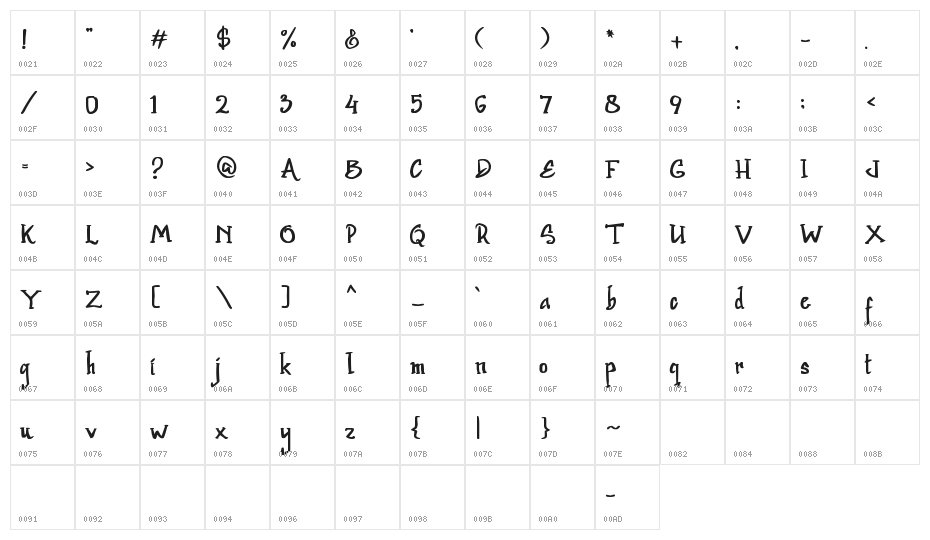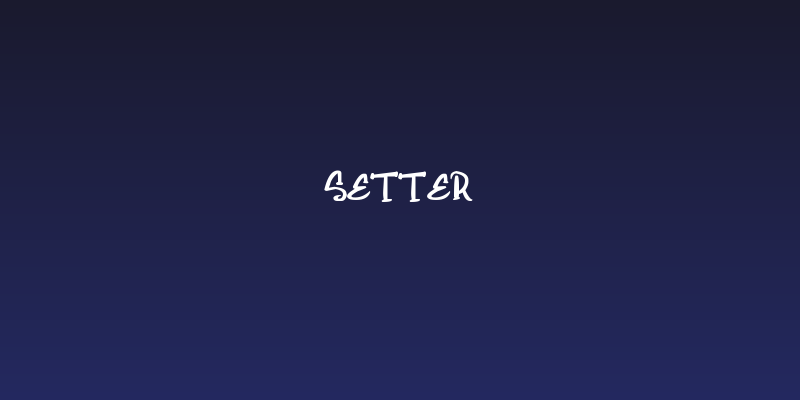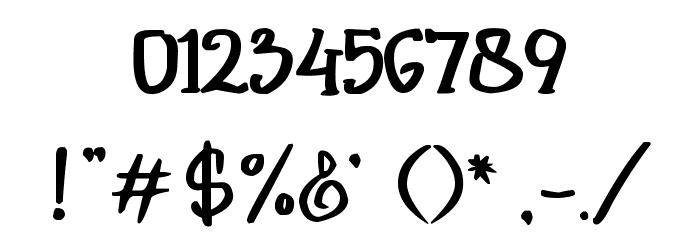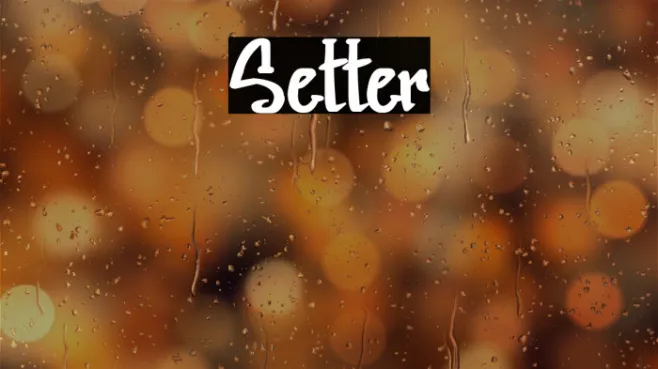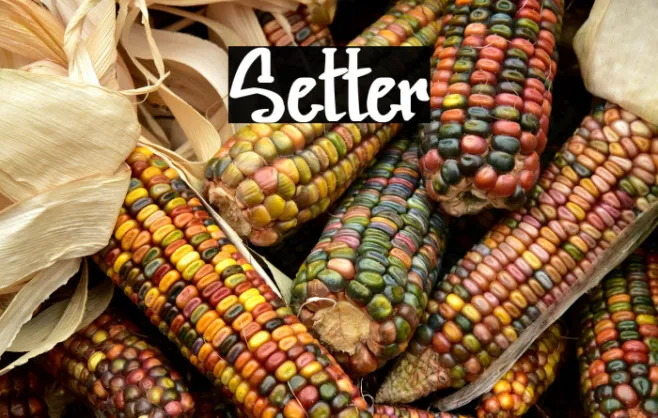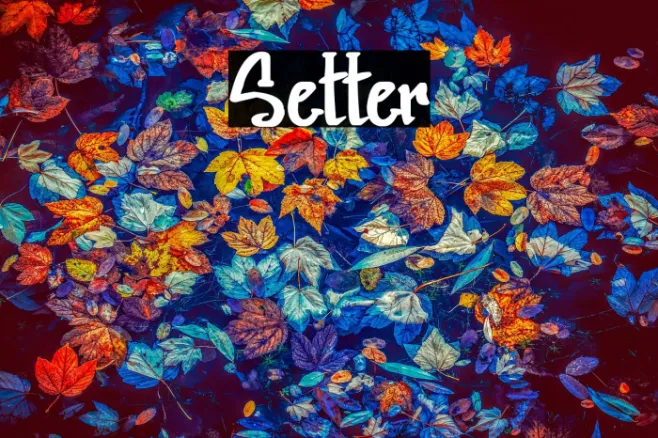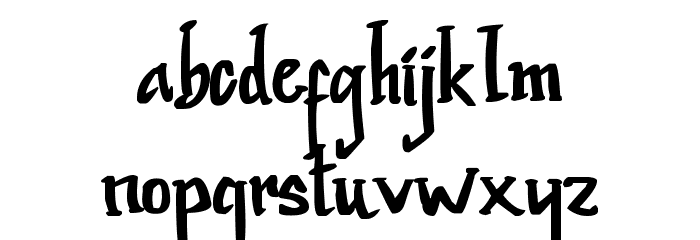
Setter Font
Setter Description
This font features a bold and dynamic style with a unique, hand-drawn appearance. The uppercase letters are characterized by their angular and slightly exaggerated forms, giving them a distinct, artistic flair. The lowercase letters maintain a consistent style, with some characters having elongated ascenders and descenders, adding to the font's overall whimsical and playful nature. The numbers are bold and clear, ensuring readability while maintaining the font's artistic style. Special characters are creatively designed, matching the font's overall aesthetic. This font's bold strokes and artistic design make it suitable for creative and expressive projects.
| Proposed Projects | Ideal for posters, artistic projects, branding, and creative designs. |